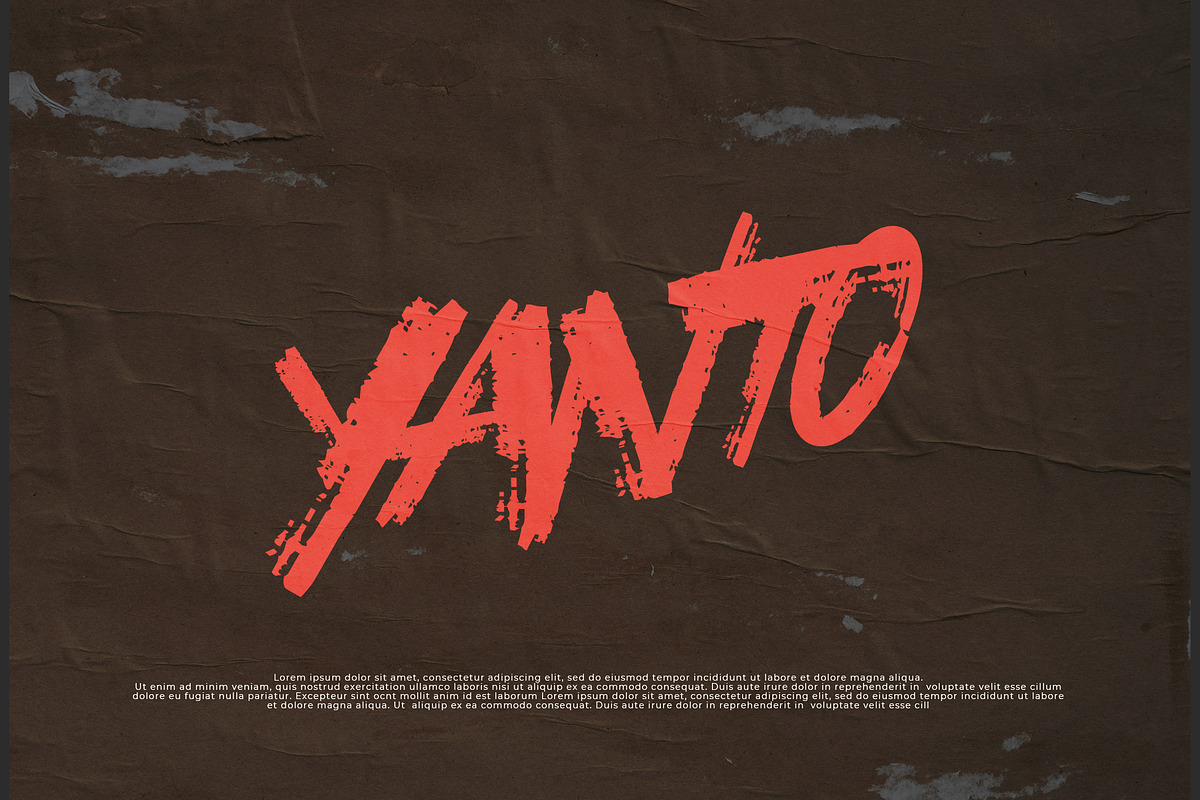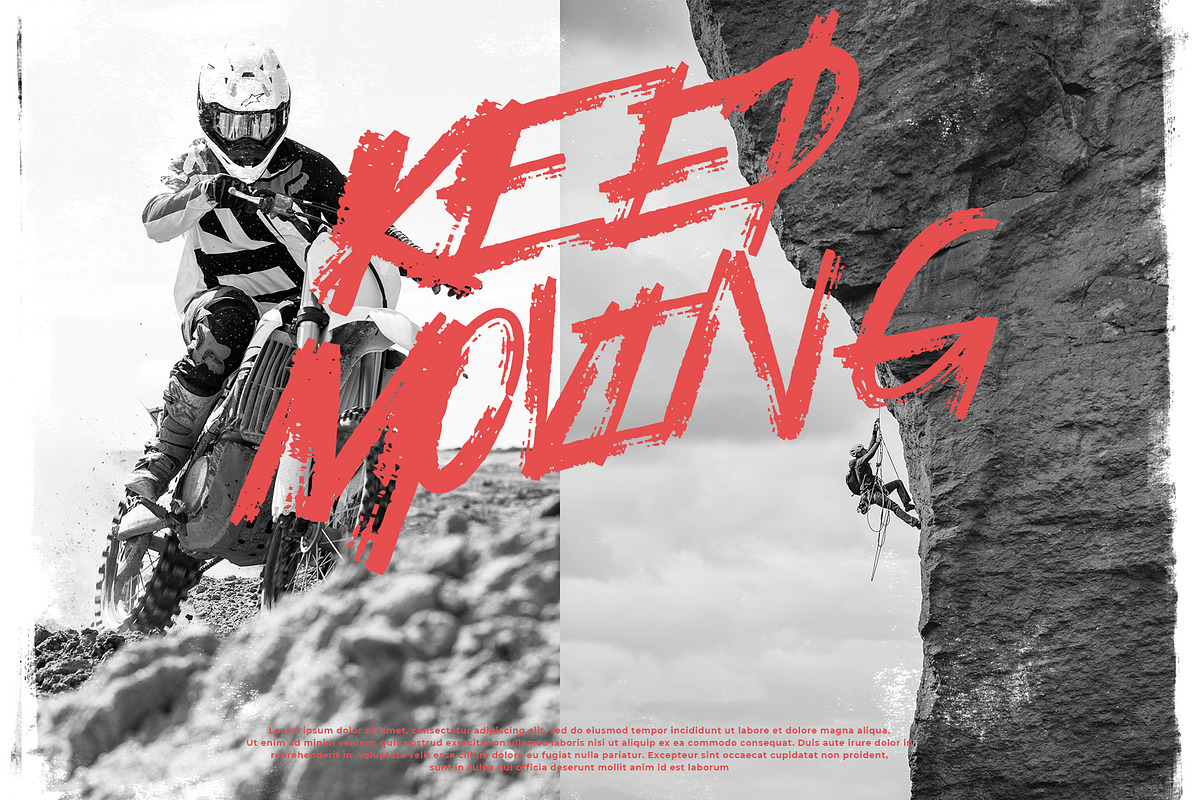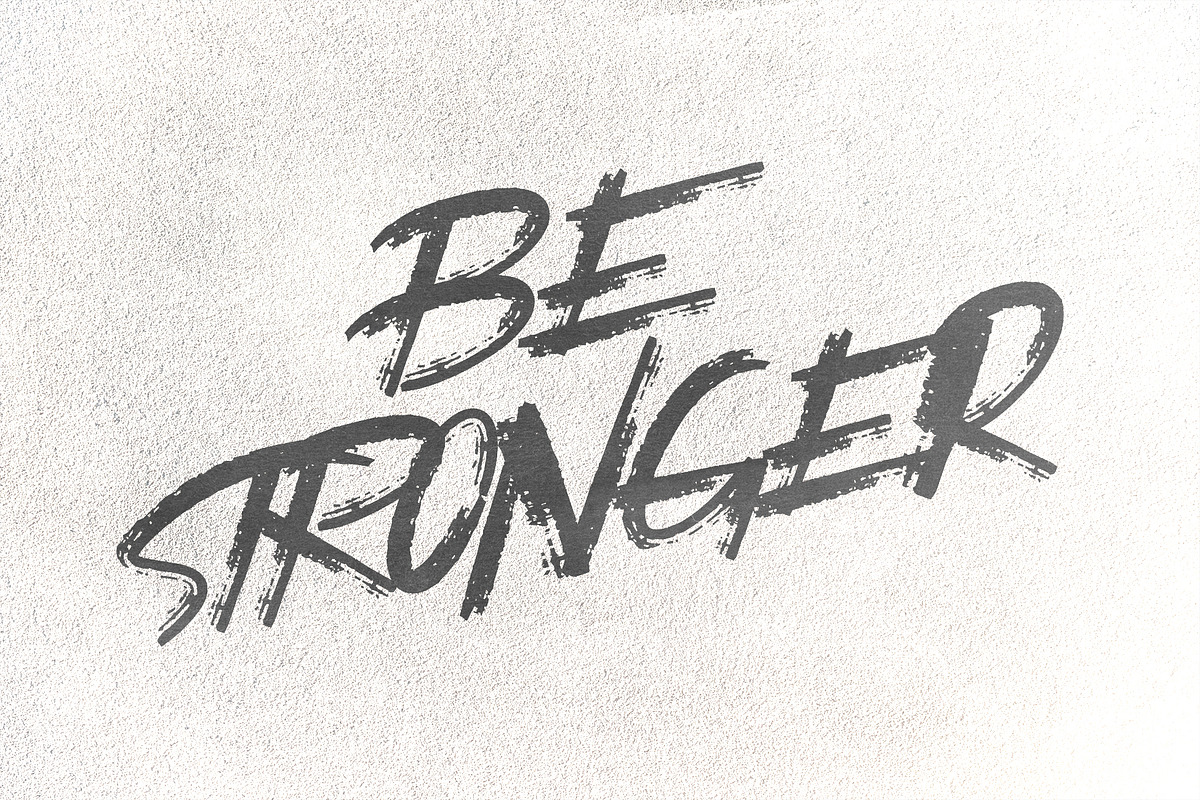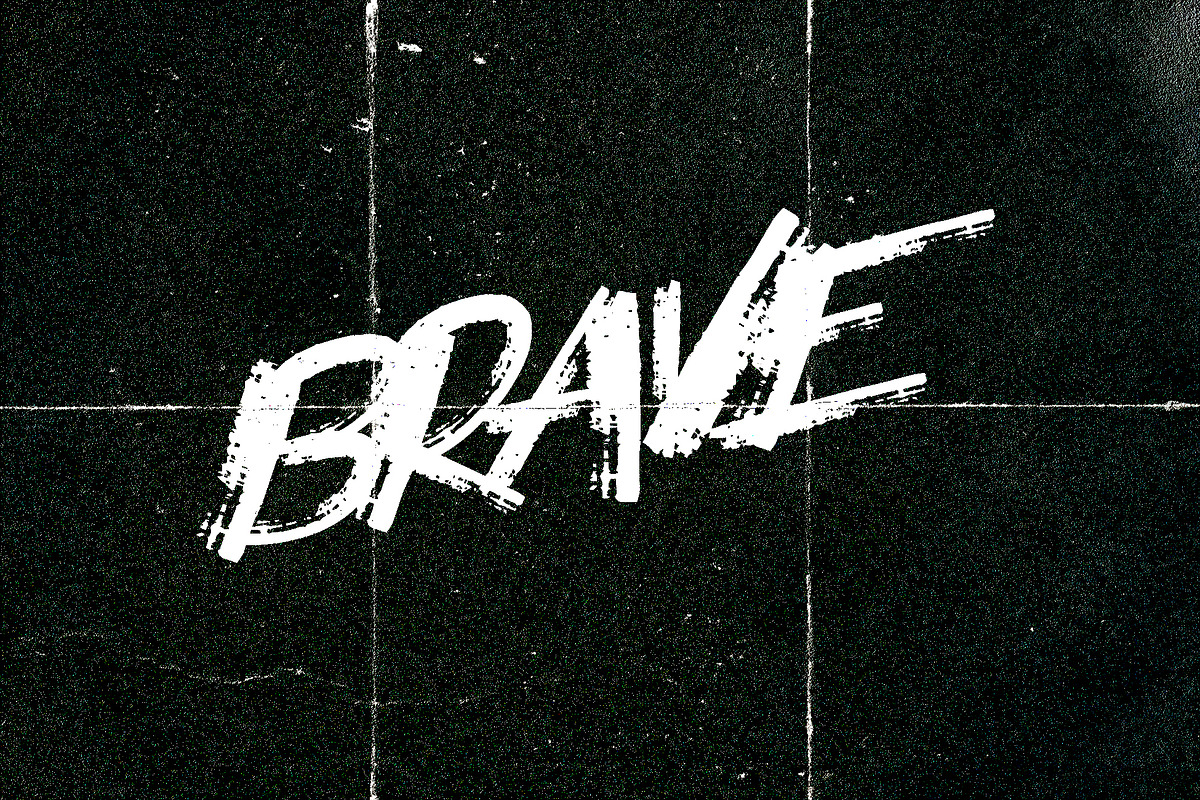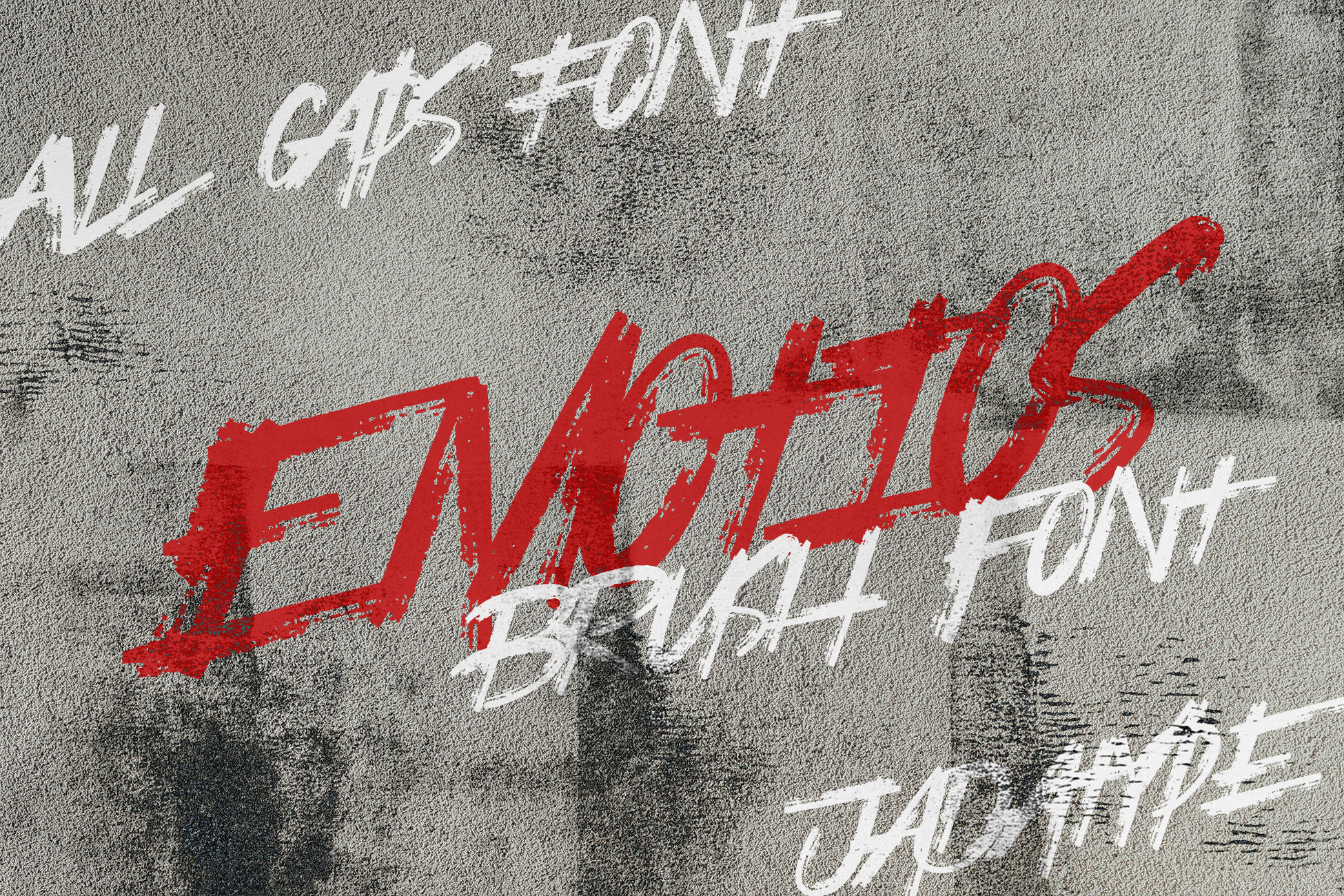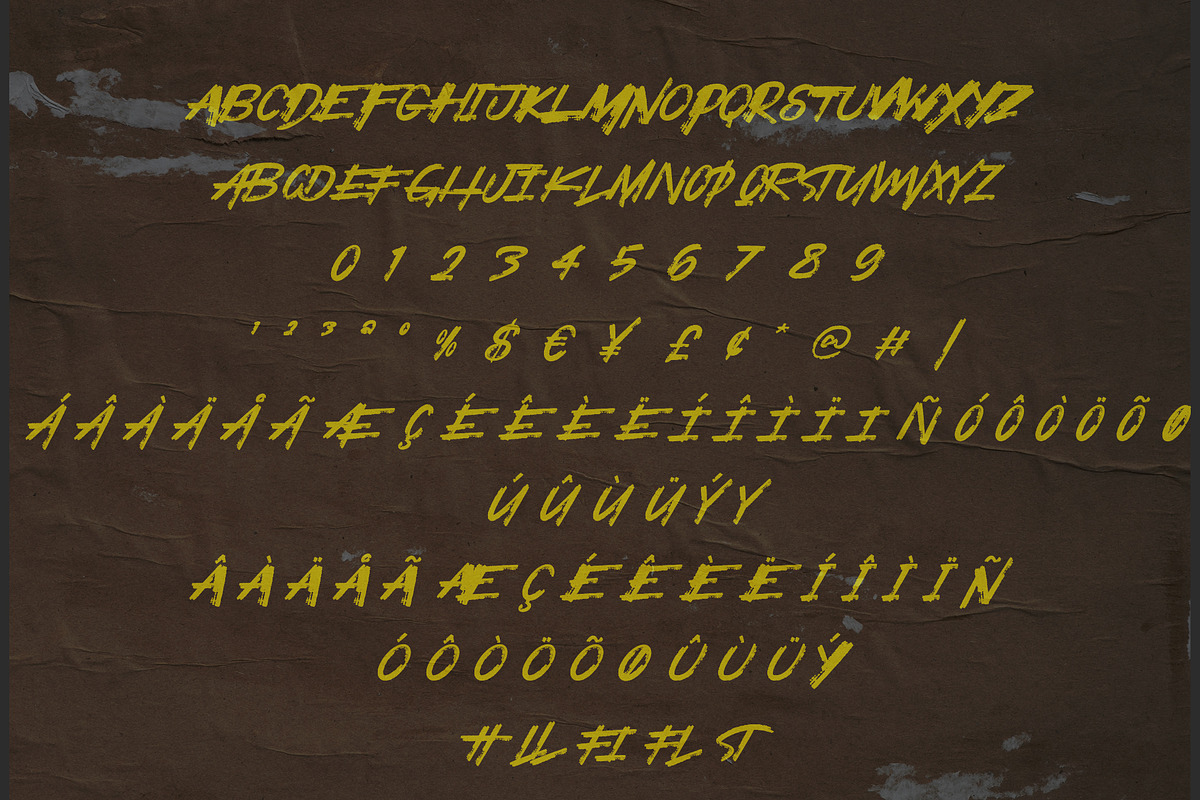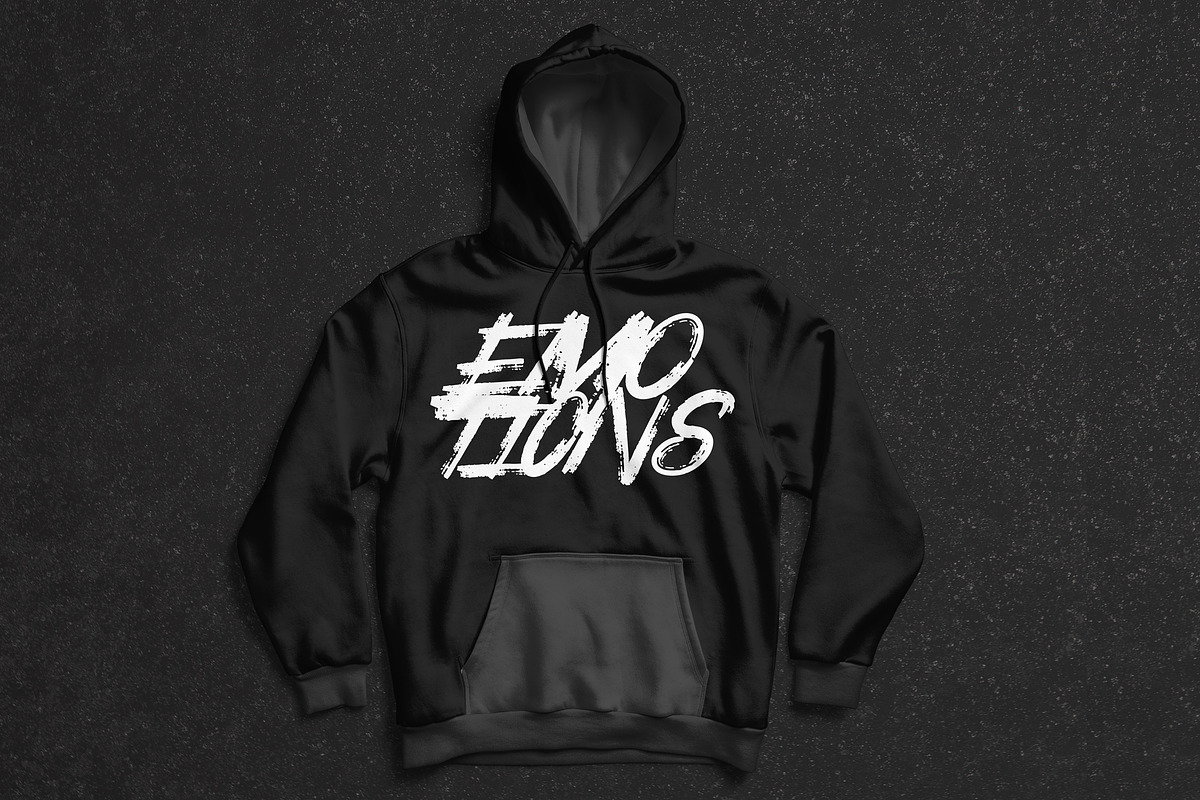
Emotios Font | All Caps Brush
Emotios is a display font with a bold brush style. suitable for posters, logotypes, apparel, branding, and so on. contains standard English letters, numbers, punctuation, Ligatures and several accents that support multilingualism.